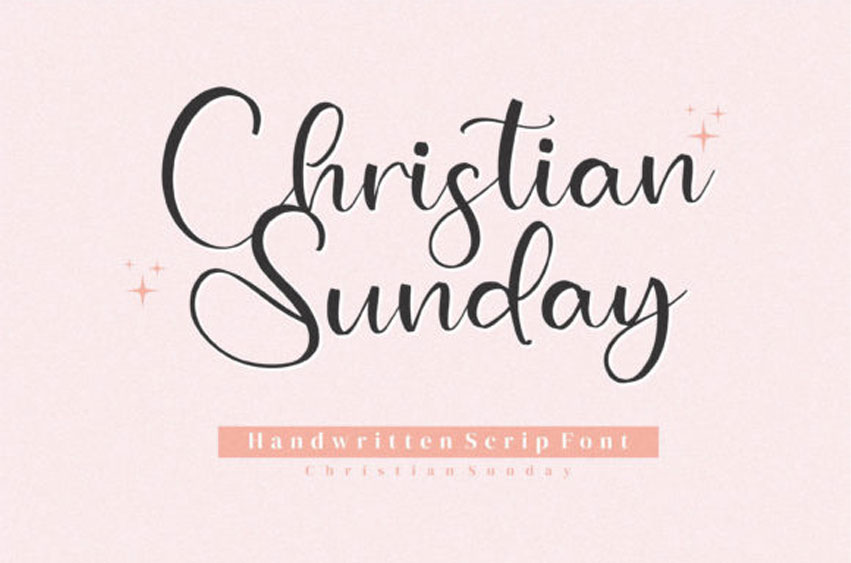
Christian Sunday Font
Christian Sunday Font is a lovely and delicate script font that exudes elegance and class. This font was particularly crafted for those who need a beautiful and refreshing look to their designs.